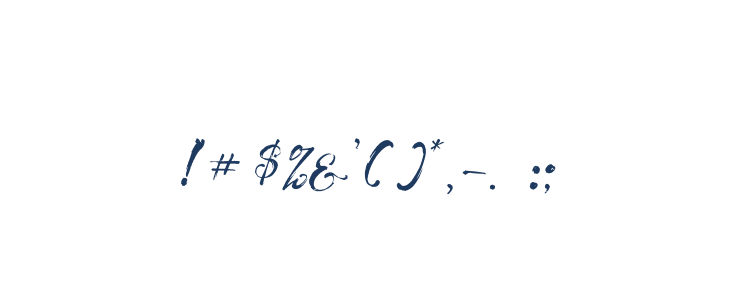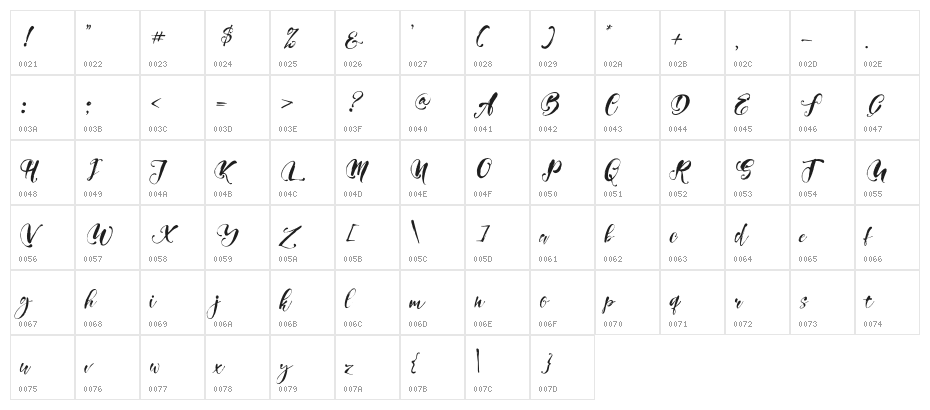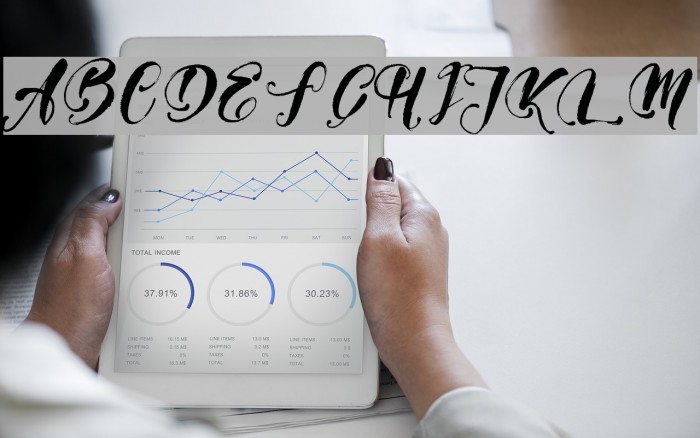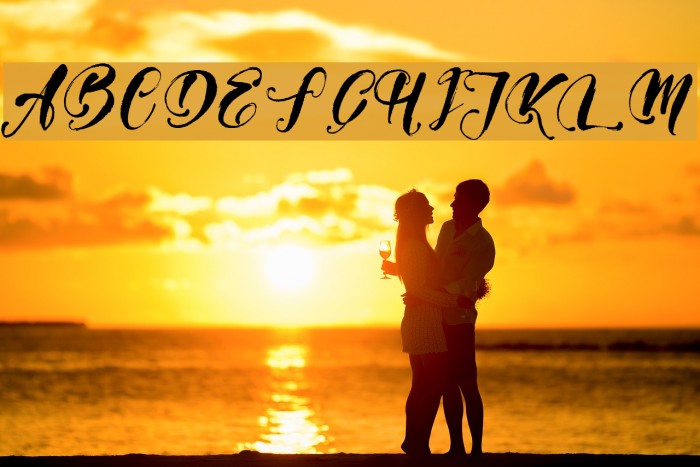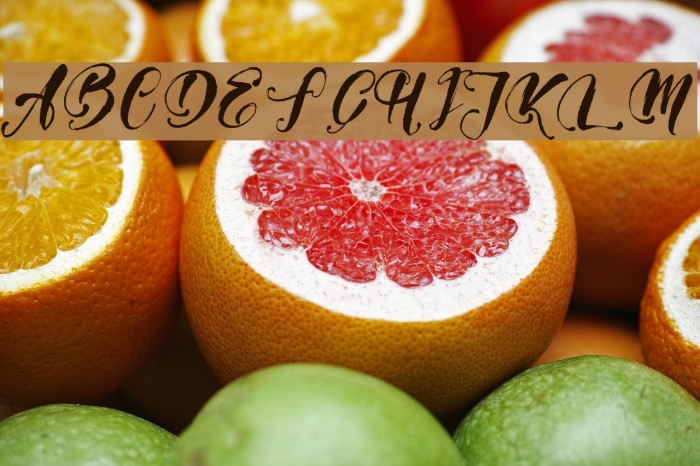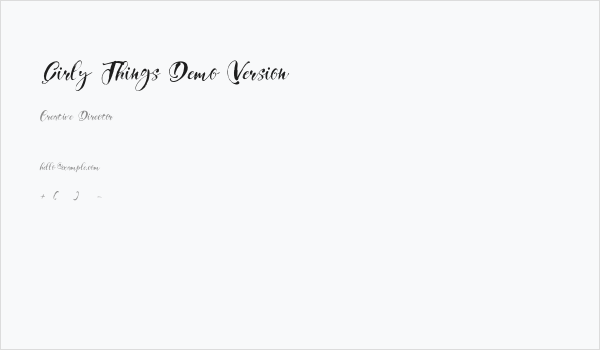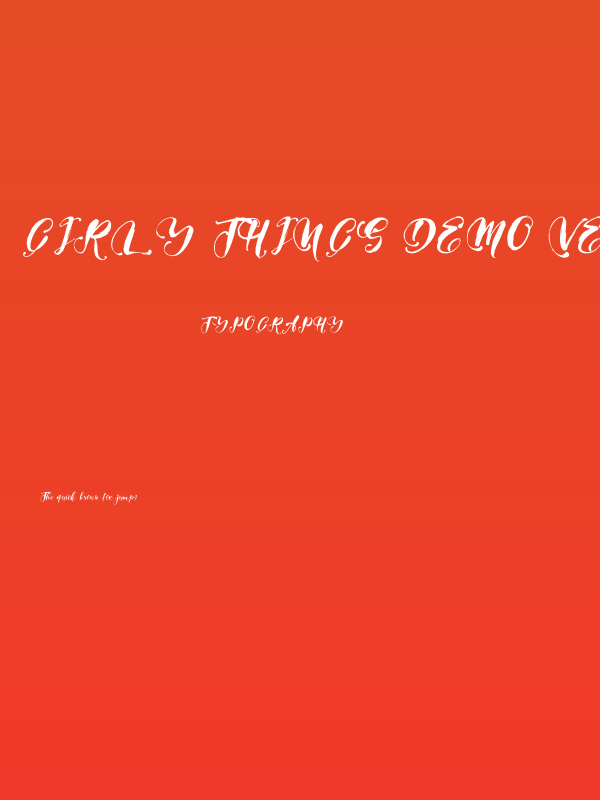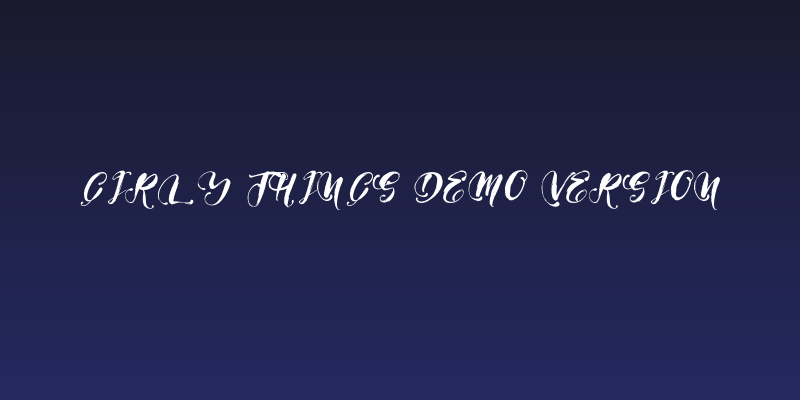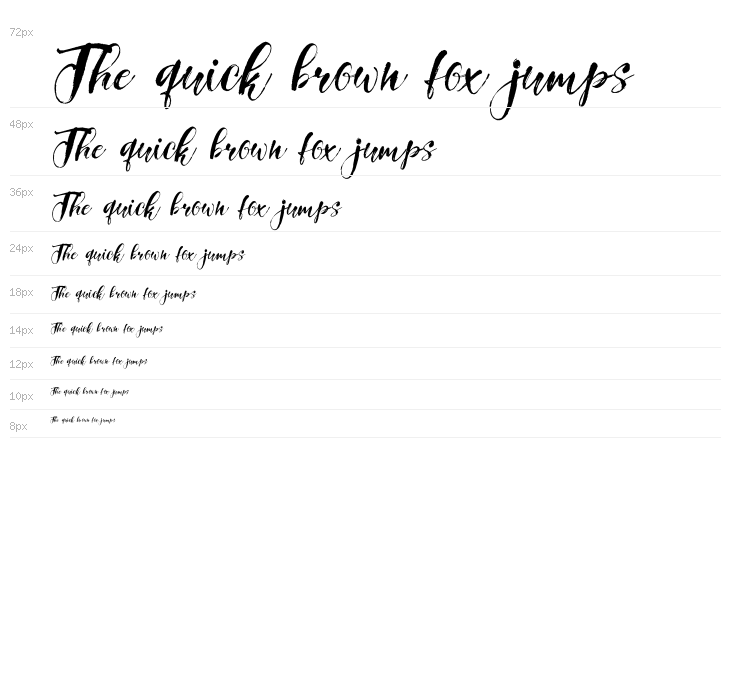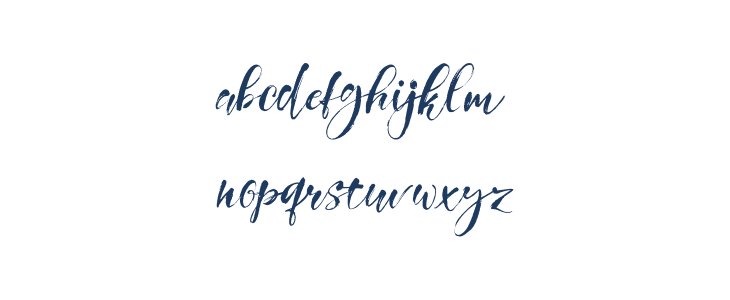
Girly Things Demo Version Font
Girly Things Demo Version Description
This font exudes a playful and elegant charm, characterized by its flowing script style. The letters are crafted with a calligraphic flair, featuring smooth curves and varying stroke widths that add a dynamic and lively feel. The uppercase letters are particularly ornate, with flourishes that enhance their decorative appeal. Lowercase letters maintain a cohesive style, ensuring readability while retaining the font's artistic essence. The special characters complement the overall design, making it suitable for creative and expressive projects.
| Proposed Projects | Ideal for wedding invitations, greeting cards, branding, and social media graphics. |